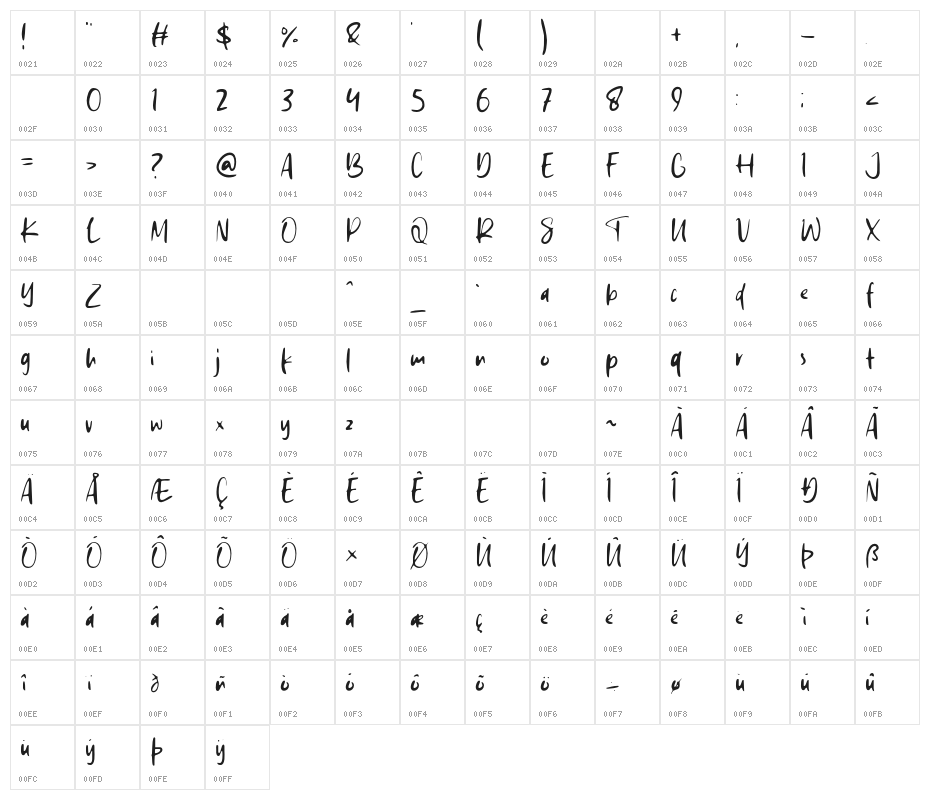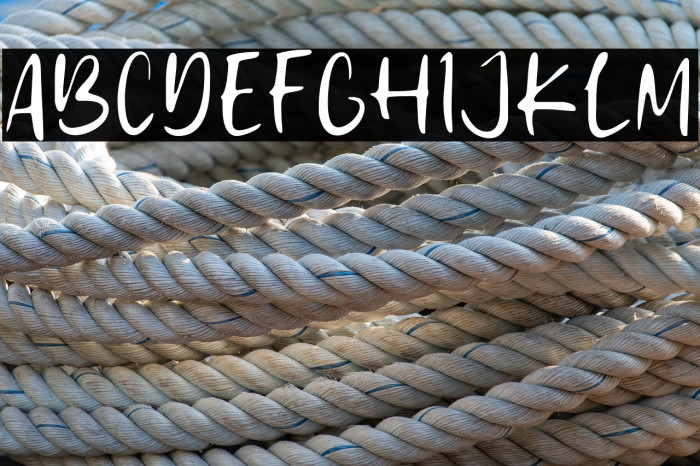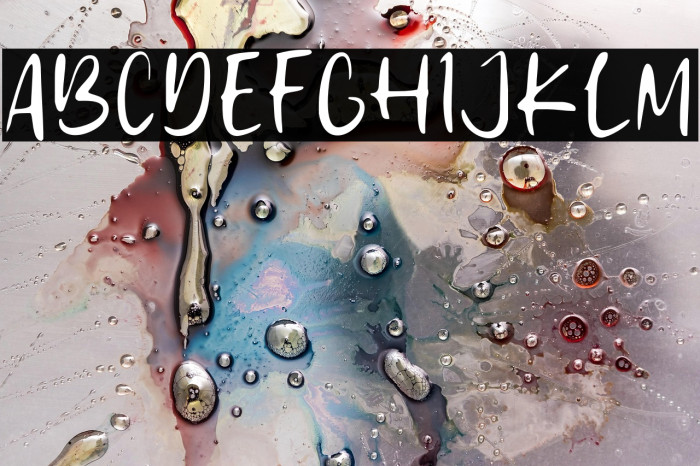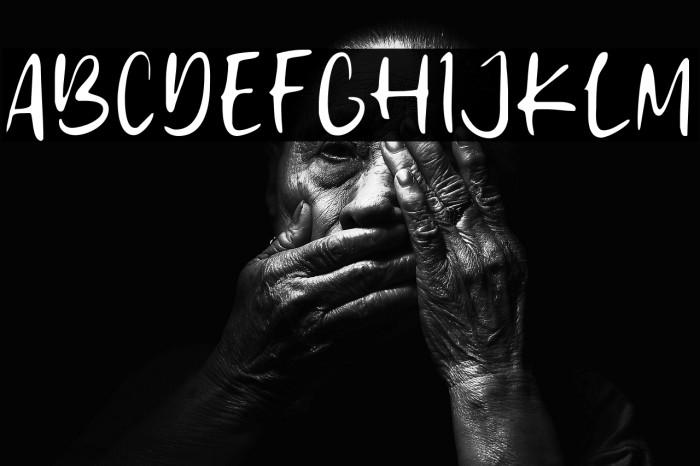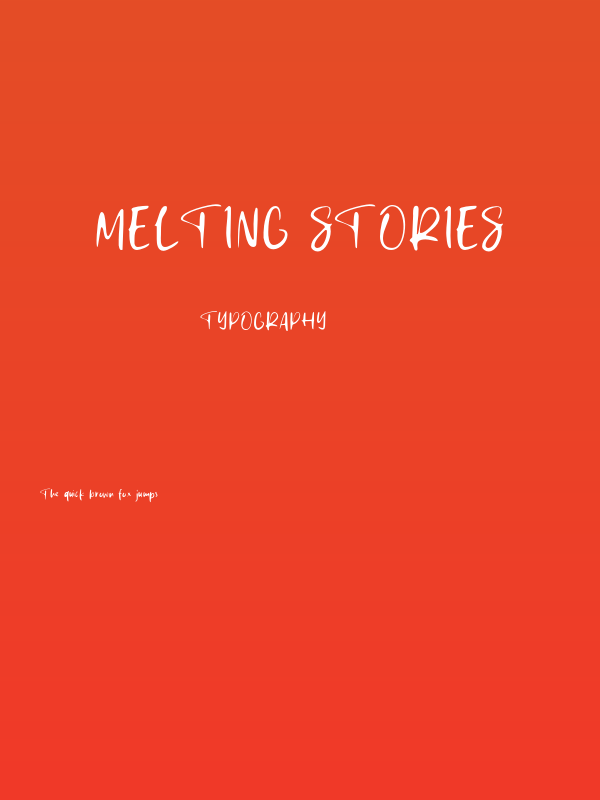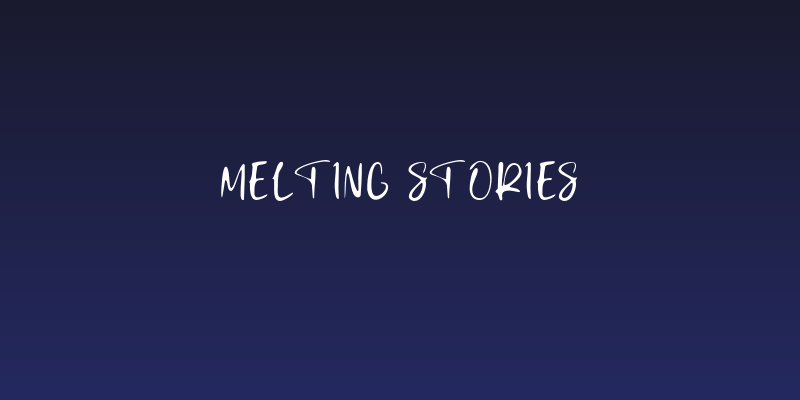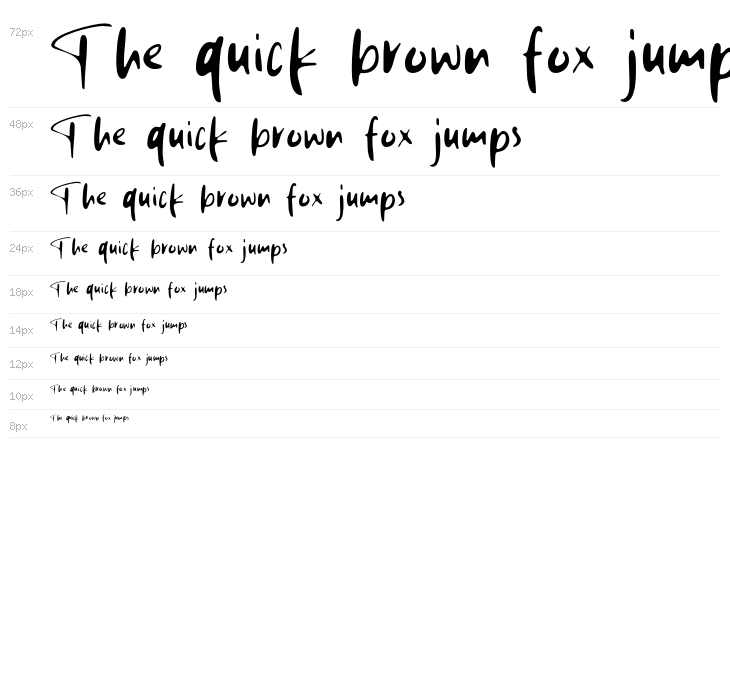
Melting Stories Font
Melting Stories Description
This font features a playful and dynamic handwritten style, characterized by its fluid and organic letterforms. The strokes are uneven, giving it a casual and informal appearance. The uppercase letters are bold and slightly irregular, while the lowercase letters maintain a consistent flow, enhancing the handwritten feel. The numbers and special characters follow the same style, ensuring a cohesive look across all elements. The overall design is energetic and lively, making it suitable for projects that require a personal touch.
| Overall Style | Casual and Energetic |
| Use Case | Logos, Headlines, Creative Projects |
| Proposed Projects | Ideal for greeting cards, invitations, personal branding, and creative projects that require a casual and friendly tone. |